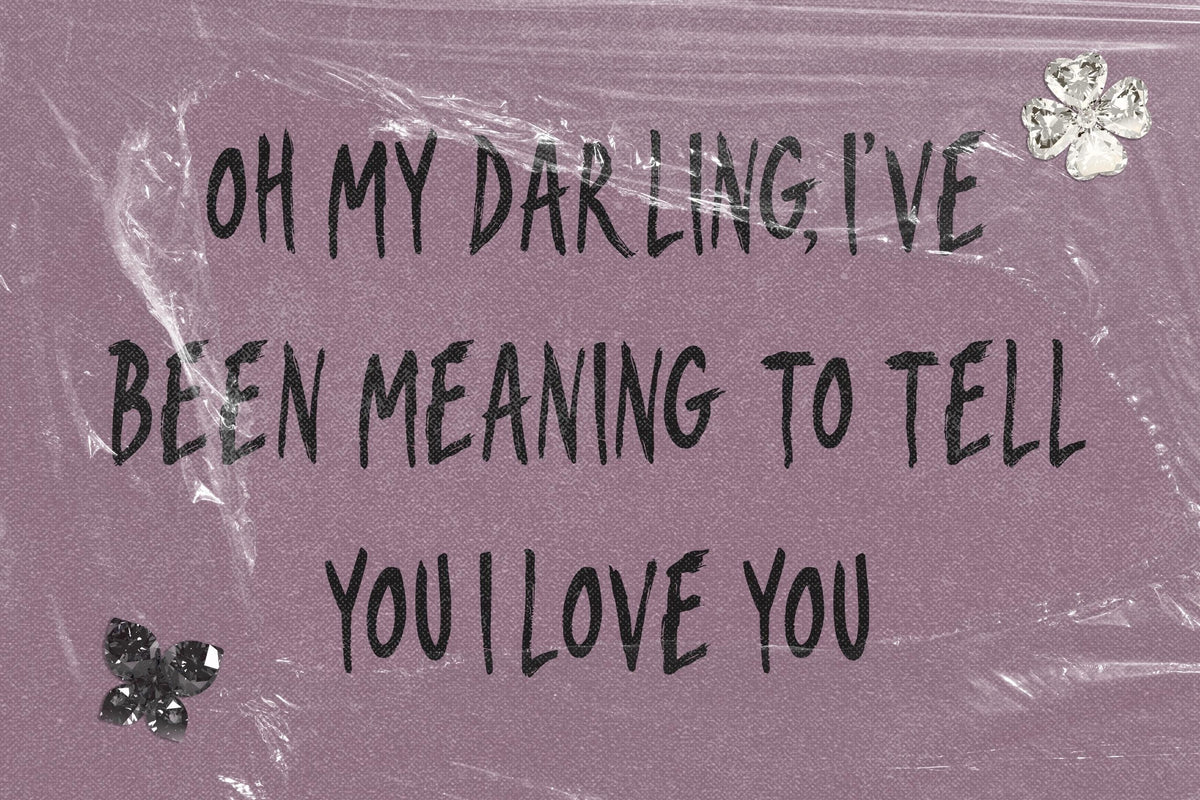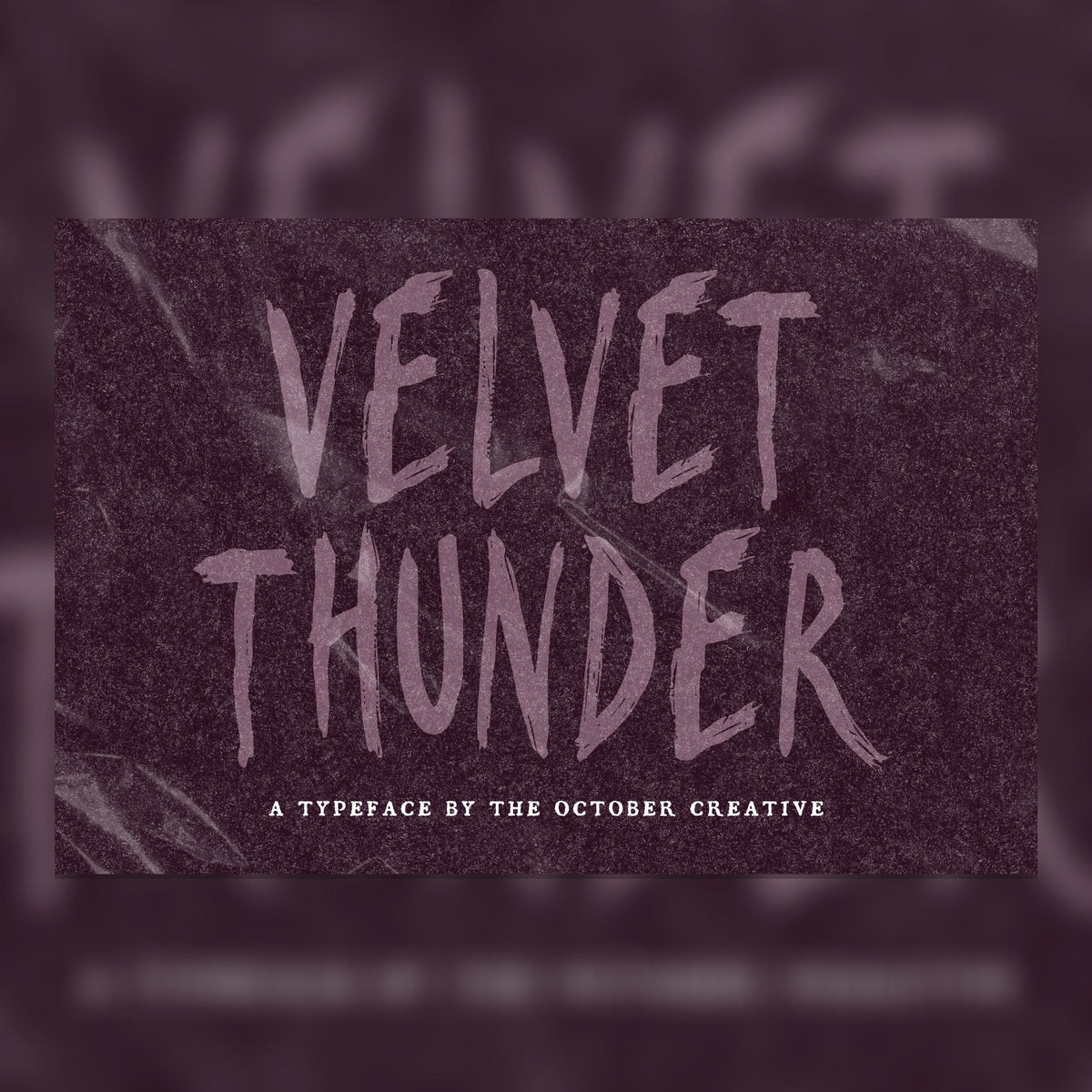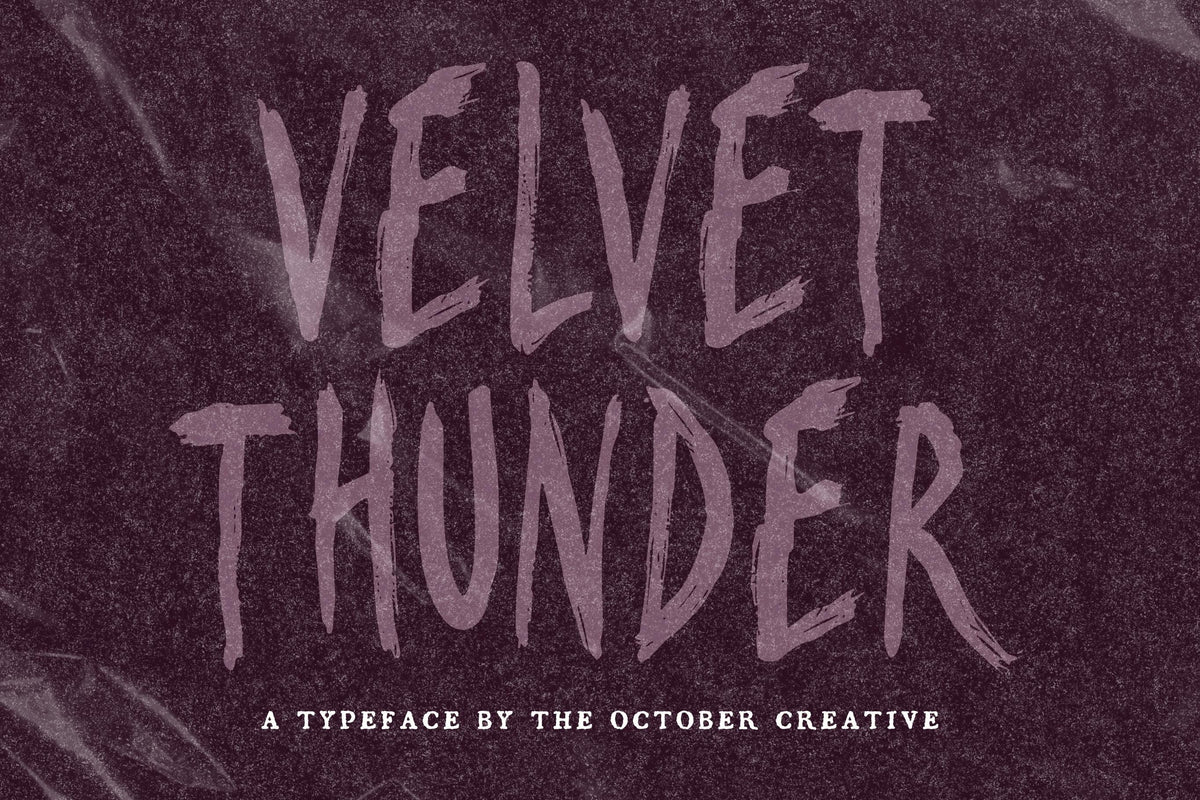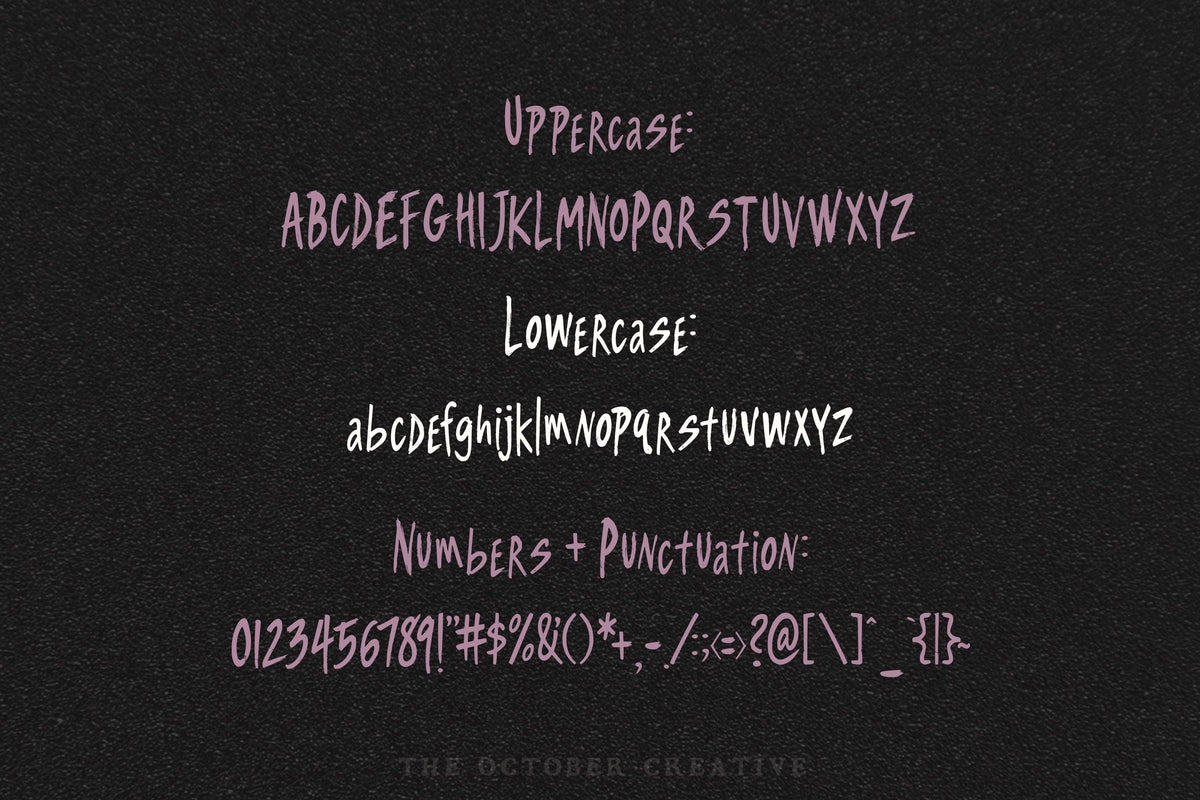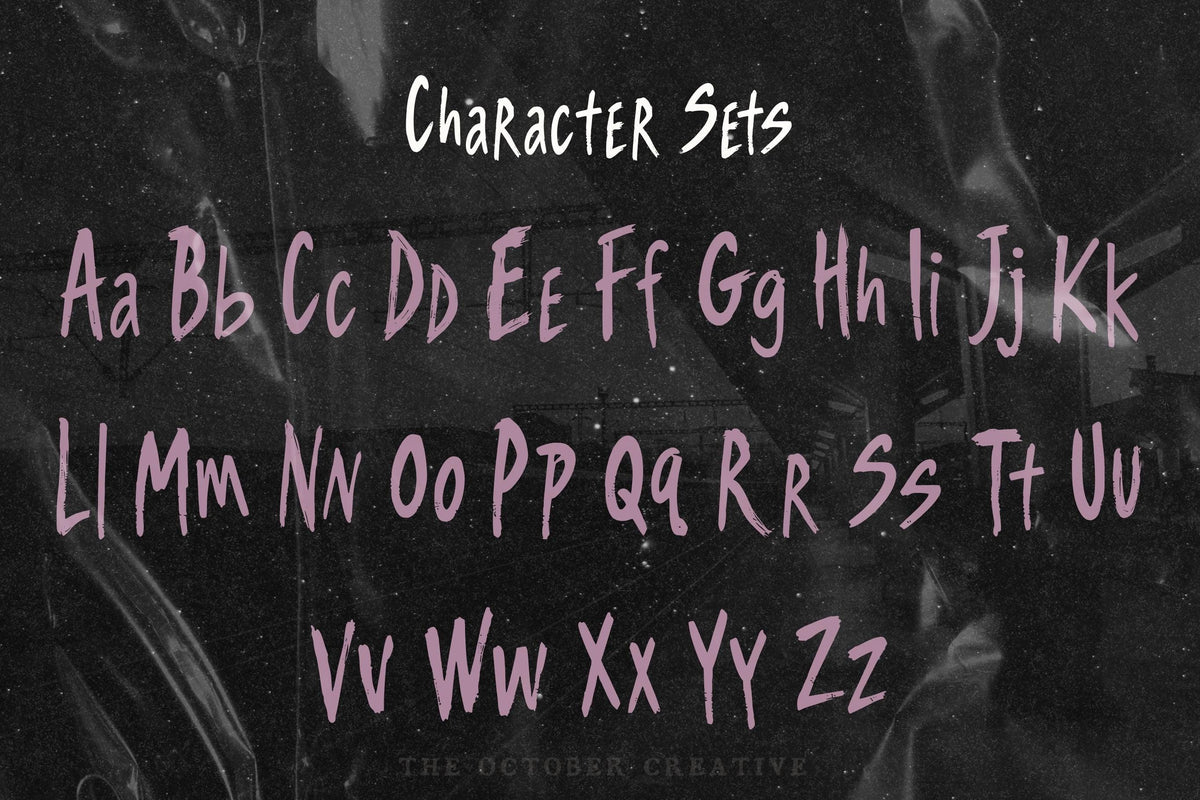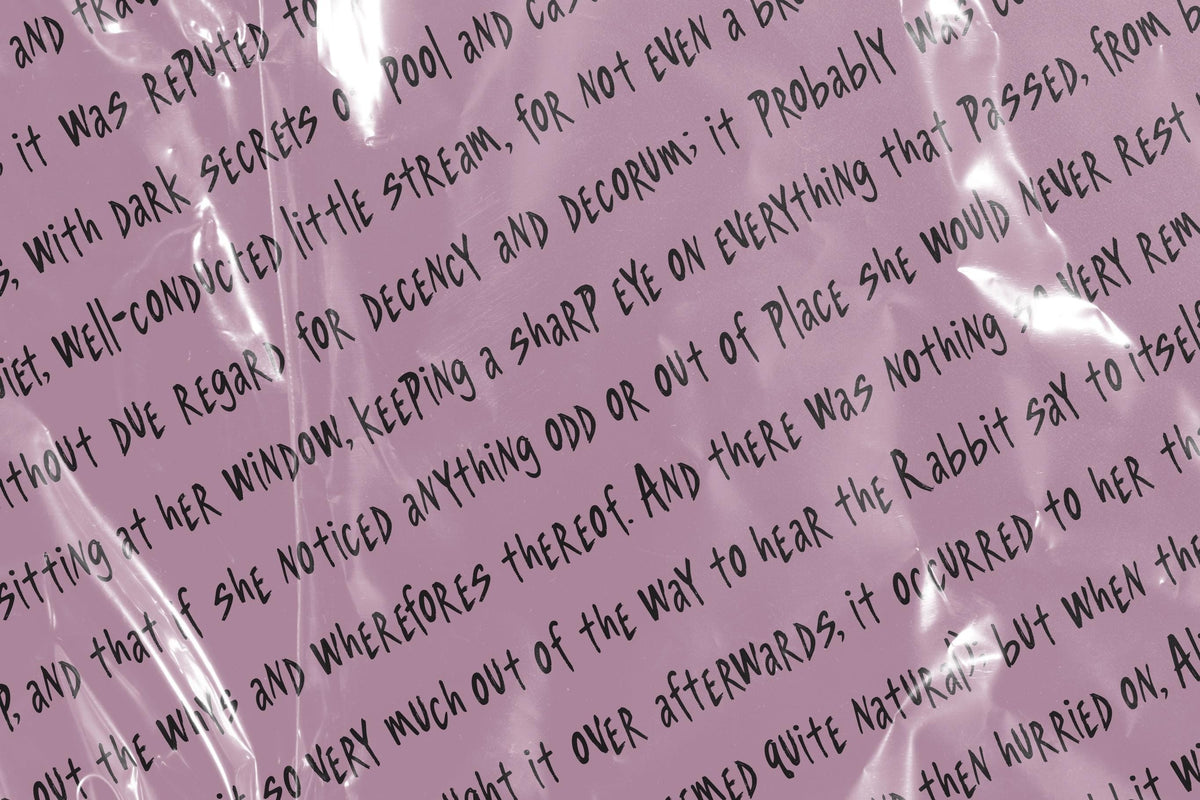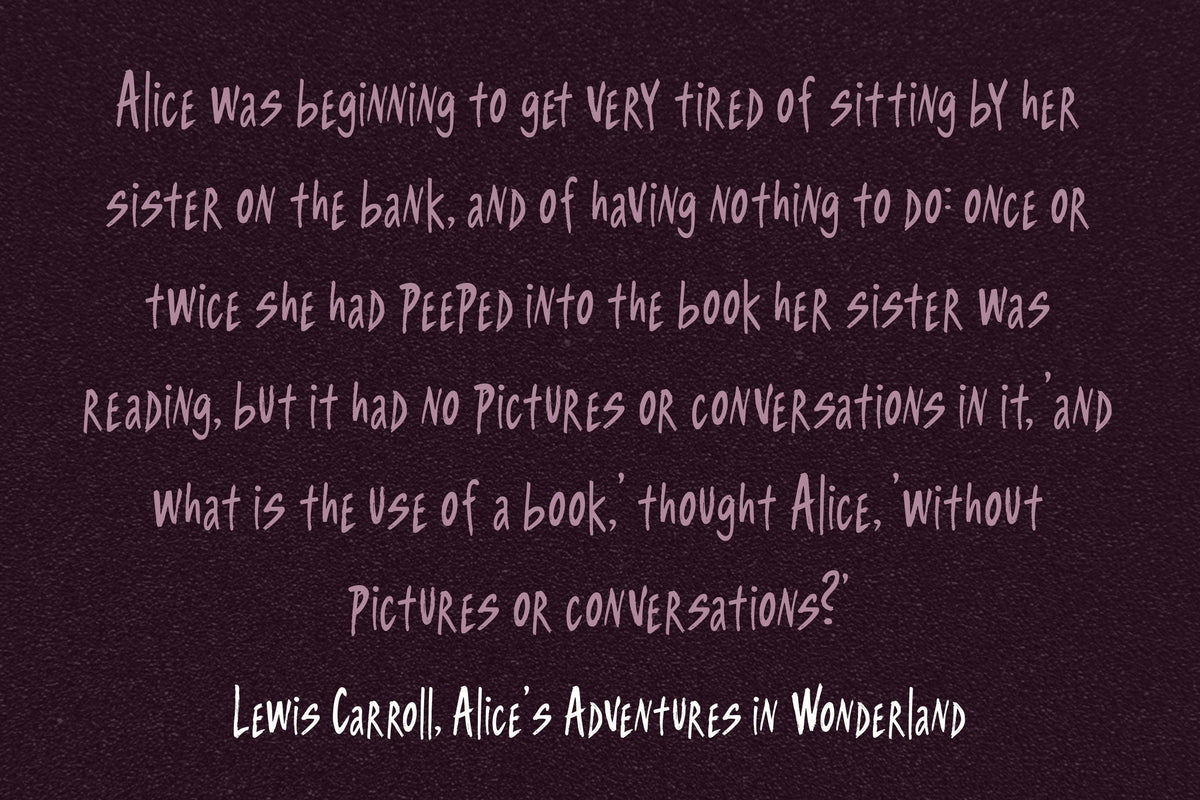
Velvet Thunder Font
Velvet Thunder is a dry brush font with condensed, rough-edged letters and streaky brush-stroke edges built into every character. Use it for concert posters, album covers, bold social headlines, and book titles.